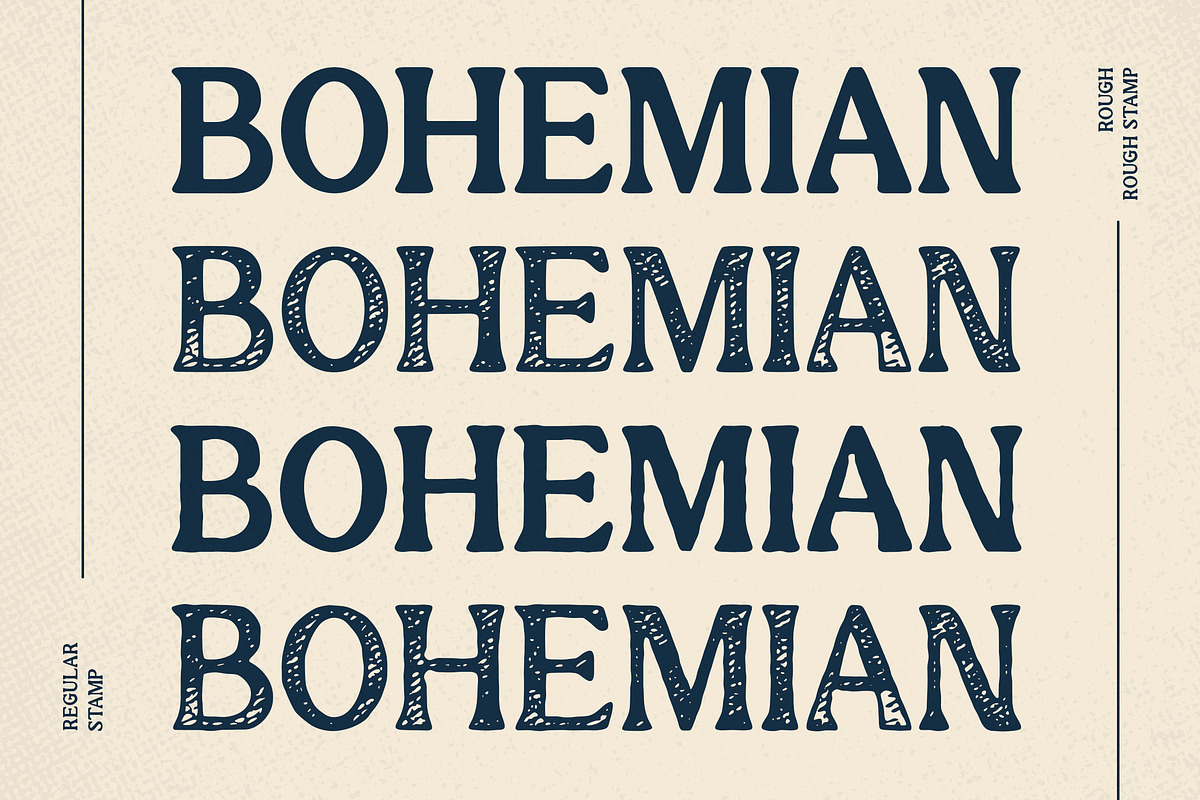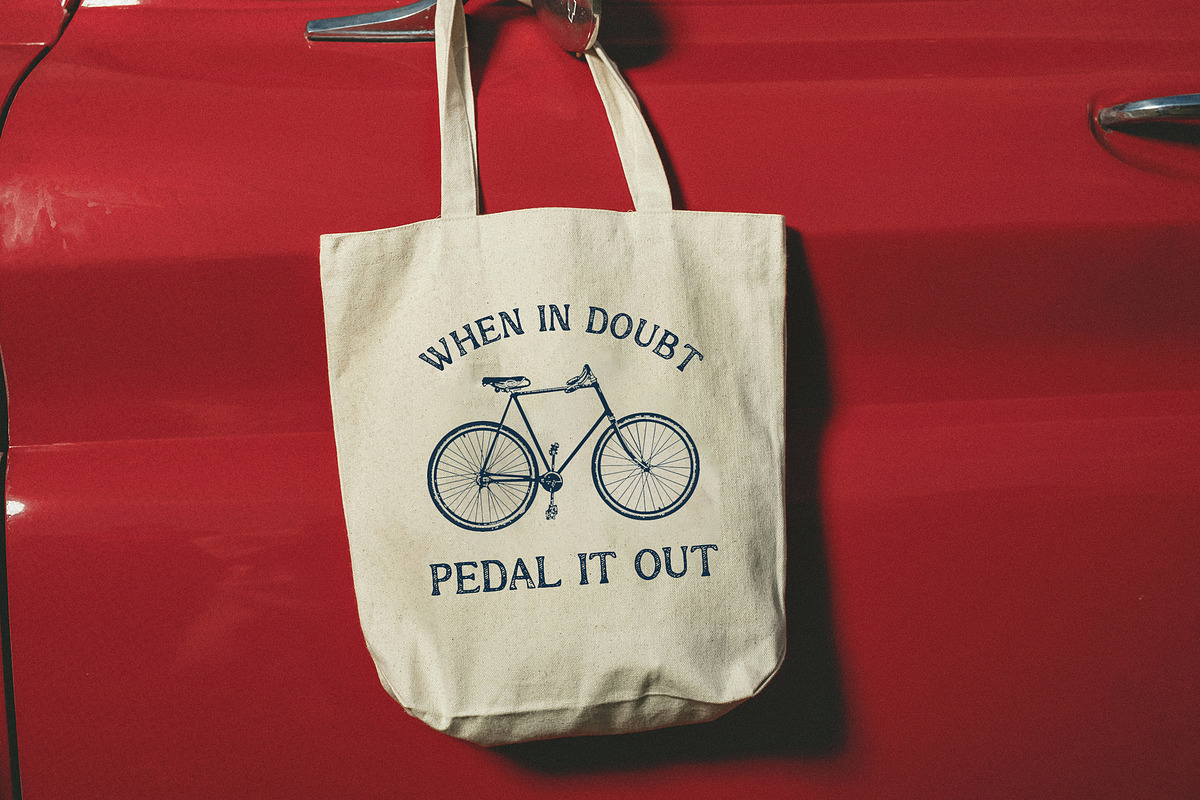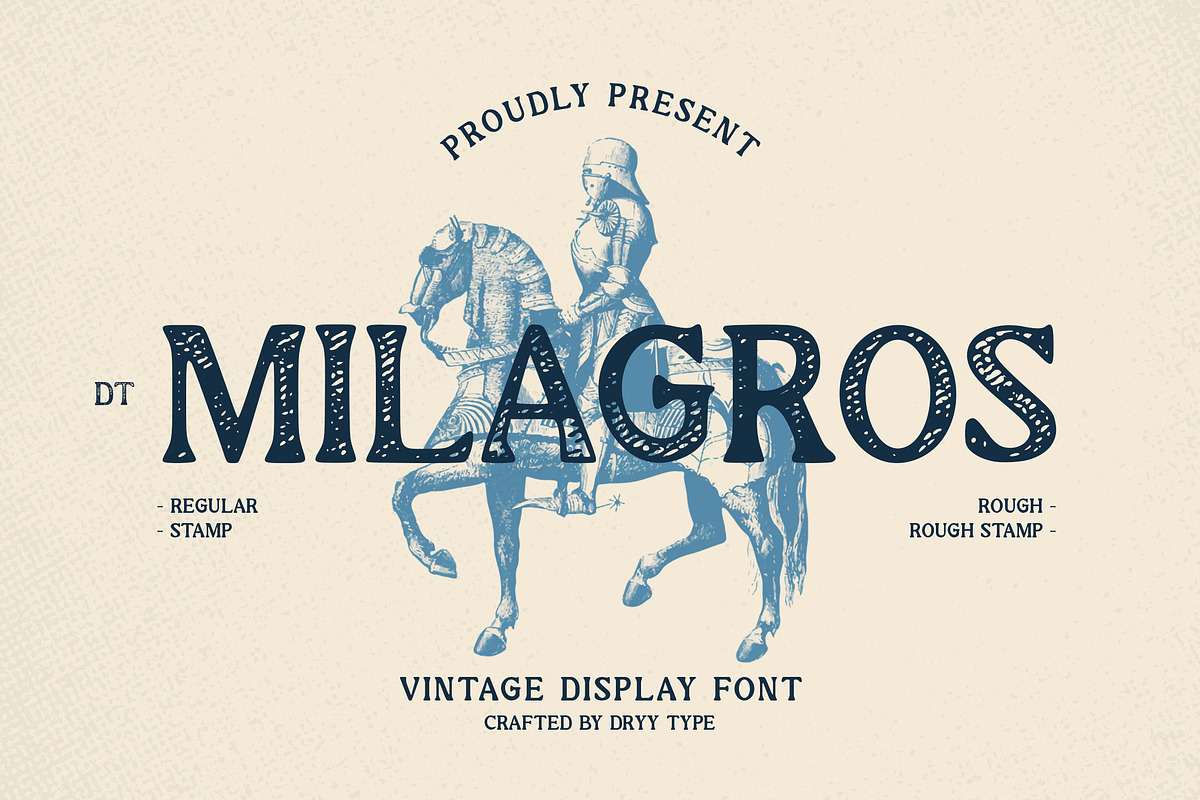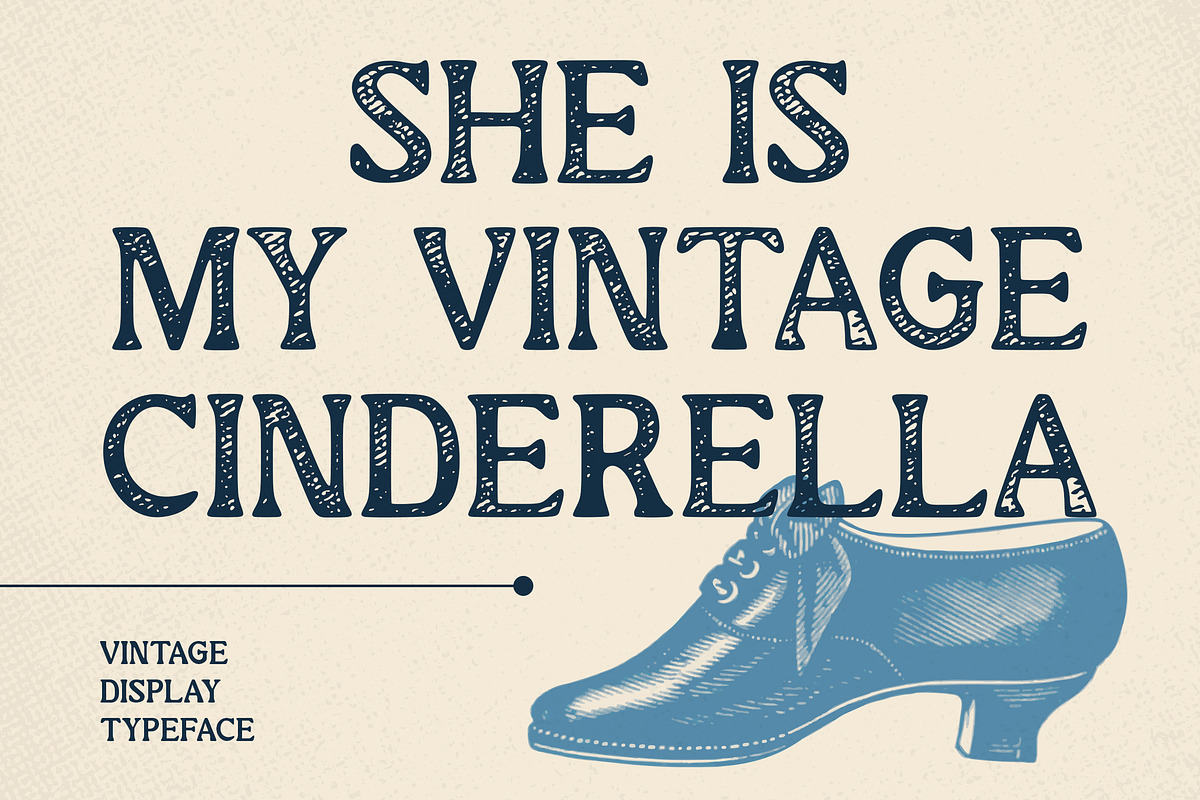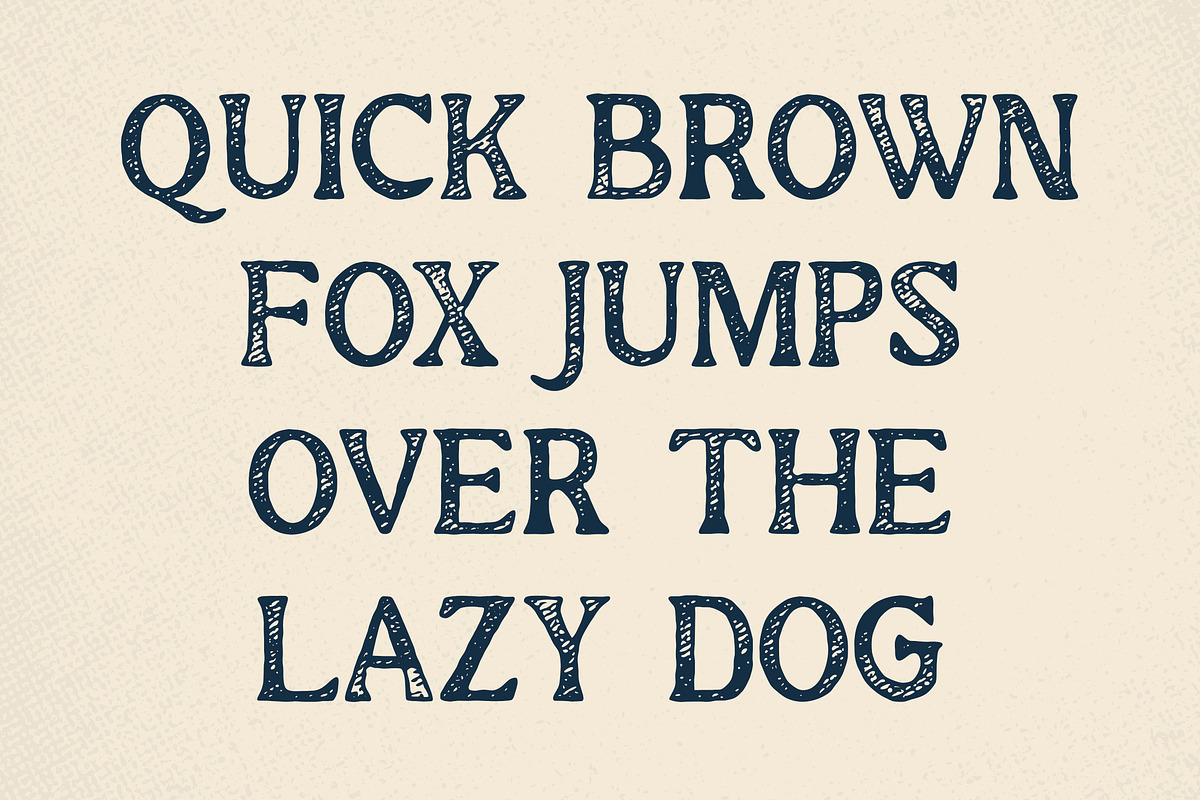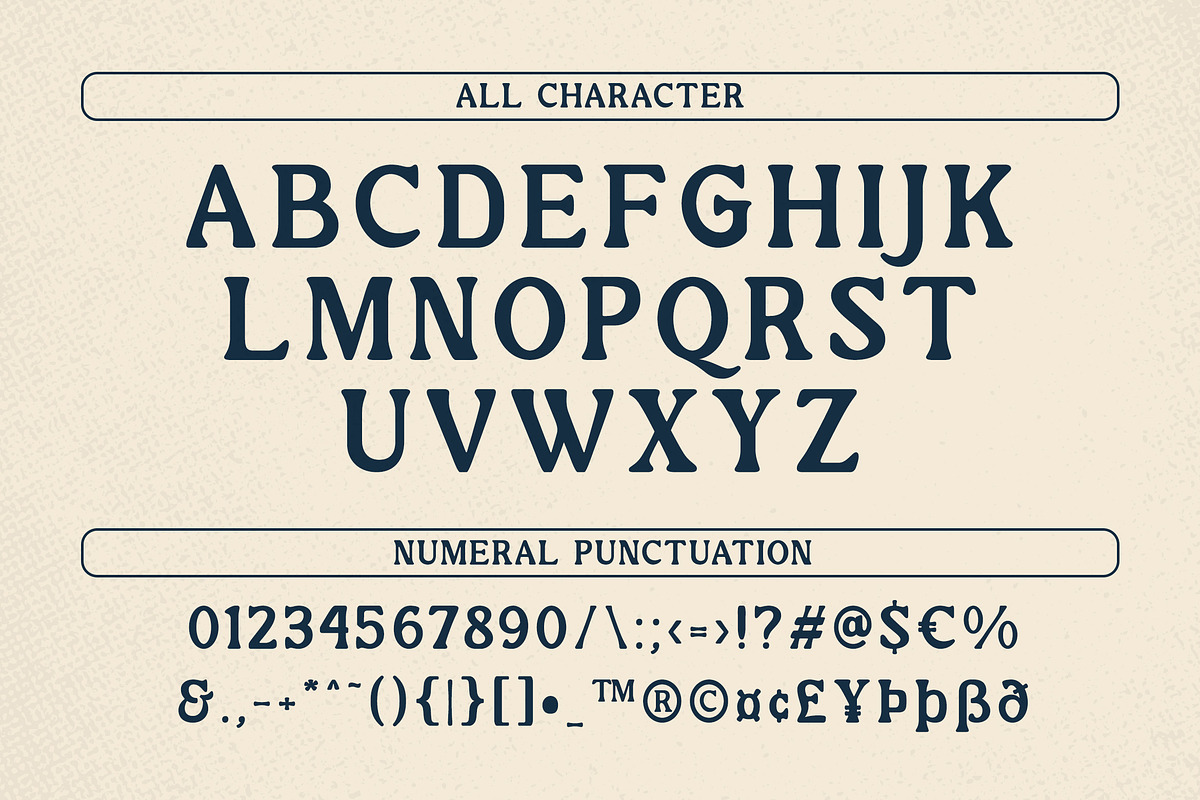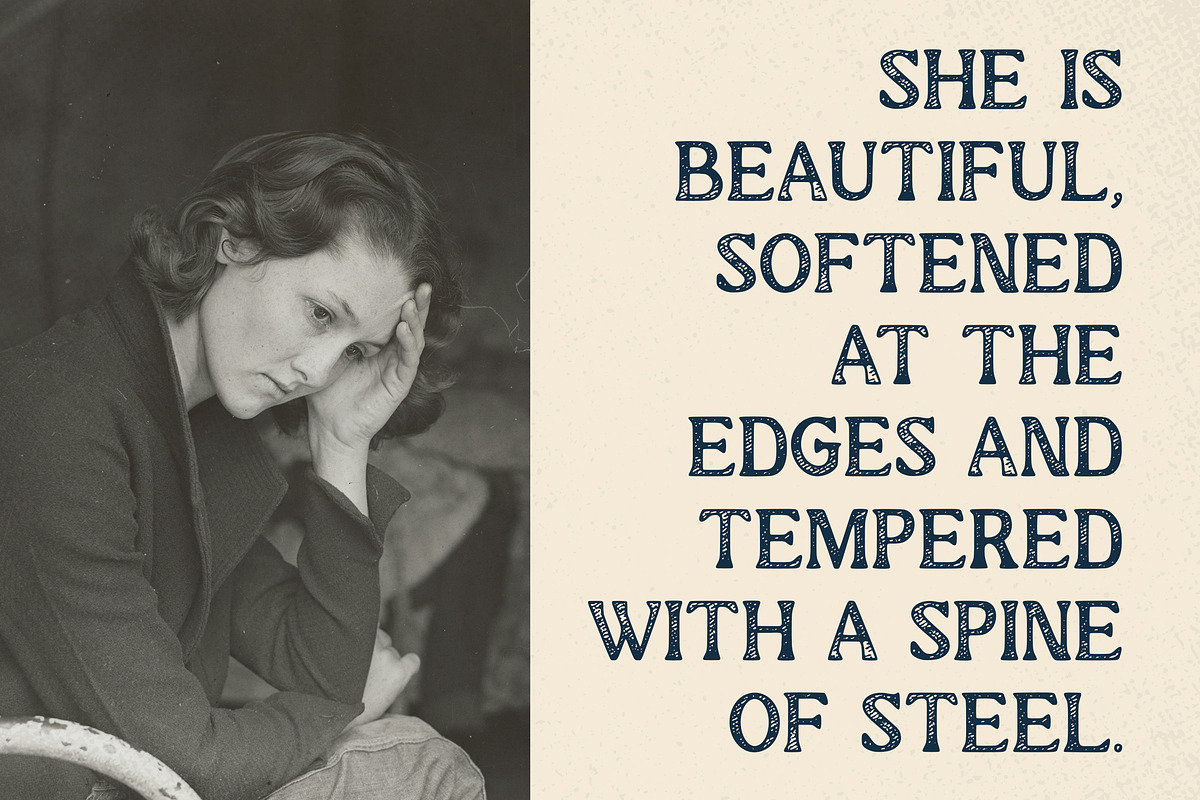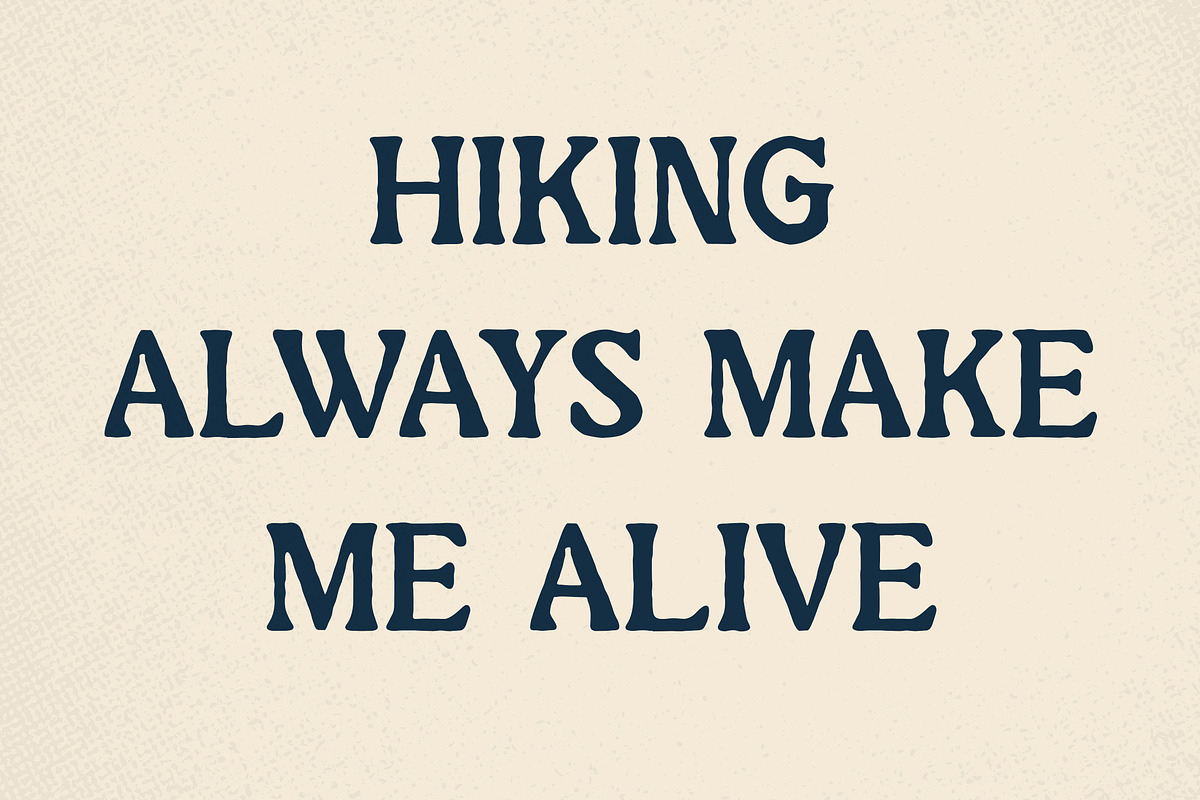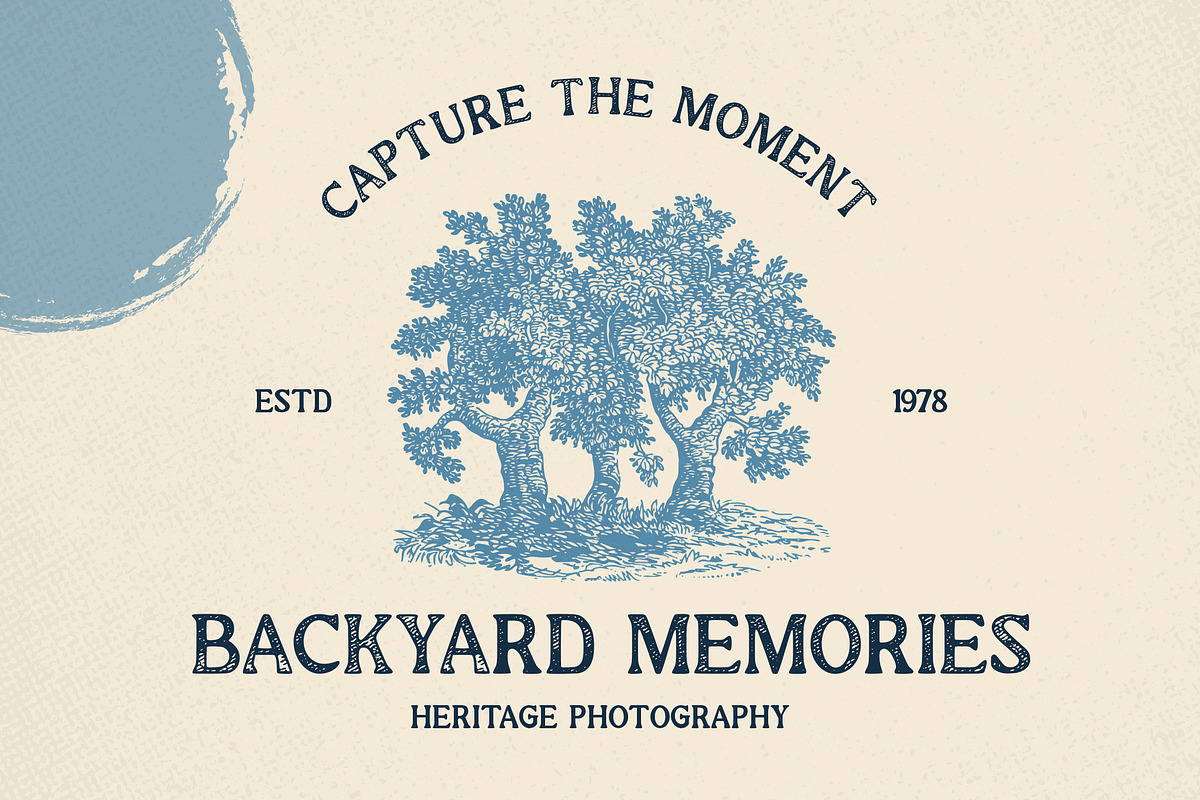
DT Milagros - Vintage Display Font
DT Milagros Font
DT Milagros font is a vintage display font, This font I created is meaningful & very versatile, it goes well with various designs, elevating them to the highest level. Add this font to your favorite creative ideas and see how it comes to life! 4 Font style : - Regular
- Rough
- Stamp
- Rough Stamp
Features : All Caps, Numerical, & Multilingual Support